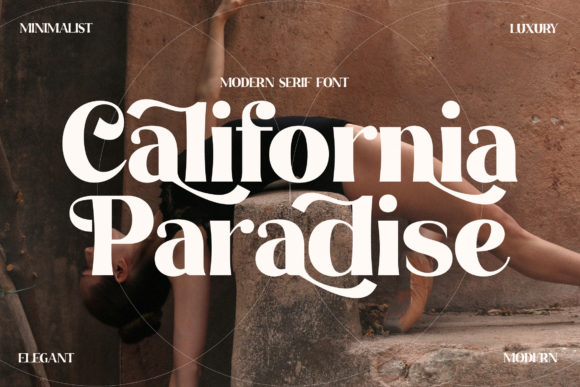
Unleash the Captivating Charm of California Paradise: Your Gateway to Timeless Elegance and Modern Grace
In the realm of typography, where letters dance and words come alive, California Paradise emerges as a triumphant symphony of classic serif elegance and contemporary flair. This enchanting font, meticulously crafted by Storytype Studio, is a testament to the enduring power of timeless design, effortlessly blending the charm of yesteryear with the vibrancy of the modern era.
Adorned with an array of meticulously designed glyphs and swashes, California Paradise invites you to explore a world of creative possibilities. With its innate versatility, this font effortlessly adapts to a myriad of design endeavors, transforming ordinary text into captivating works of art.
Step into the realm of fashion and let California Paradise elevate your designs to new heights of sophistication. Its graceful curves and refined strokes lend an air of timeless elegance to logos, branding, and apparel, captivating the hearts of fashion-forward individuals.
Journey into the world of literature and allow California Paradise to grace the covers of your books, enchanting readers with its captivating allure. Its intricate details and timeless charm will draw them into the depths of your stories, leaving an indelible mark on their imaginations.
The world of cinema beckons, and California Paradise stands ready to illuminate the silver screen. Its cinematic flair adds a touch of grandeur to movie titles, transporting viewers to realms of wonder and intrigue.
Dive into the realm of design and let California Paradise transform your creative visions into tangible masterpieces. Its versatility knows no bounds, lending an air of sophistication to magazines, quotes, and lettering, leaving a lasting impression on all who behold it.
Unleash the boundless potential of California Paradise today and watch as your designs blossom into breathtaking works of art. Prepare to be mesmerized as this font captivates the hearts and minds of your audience, leaving an indelible legacy of timeless beauty and modern grace.